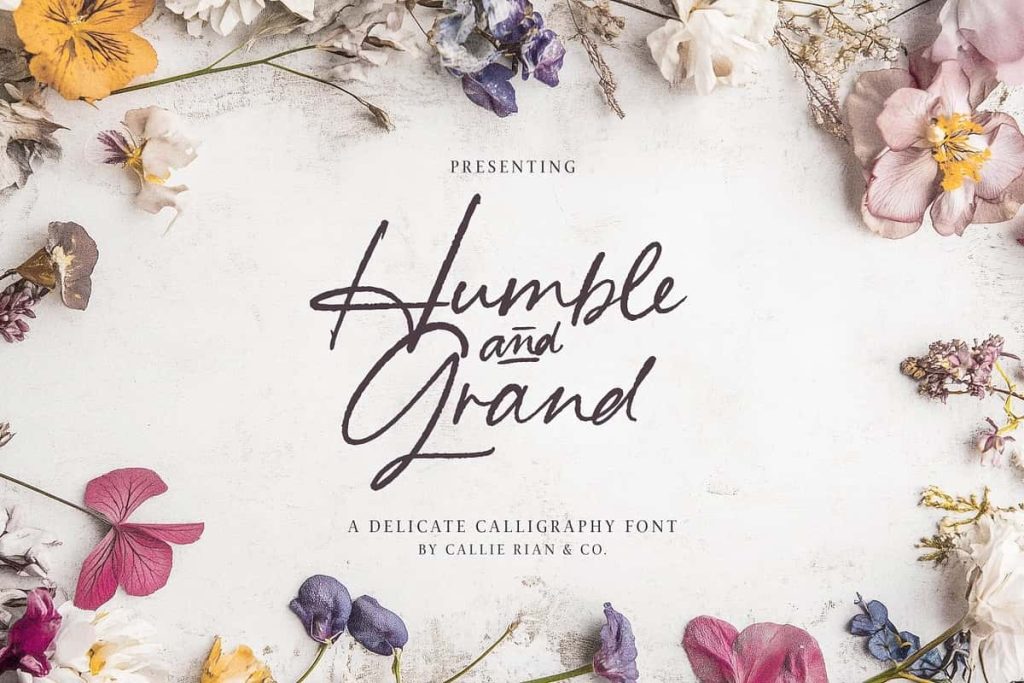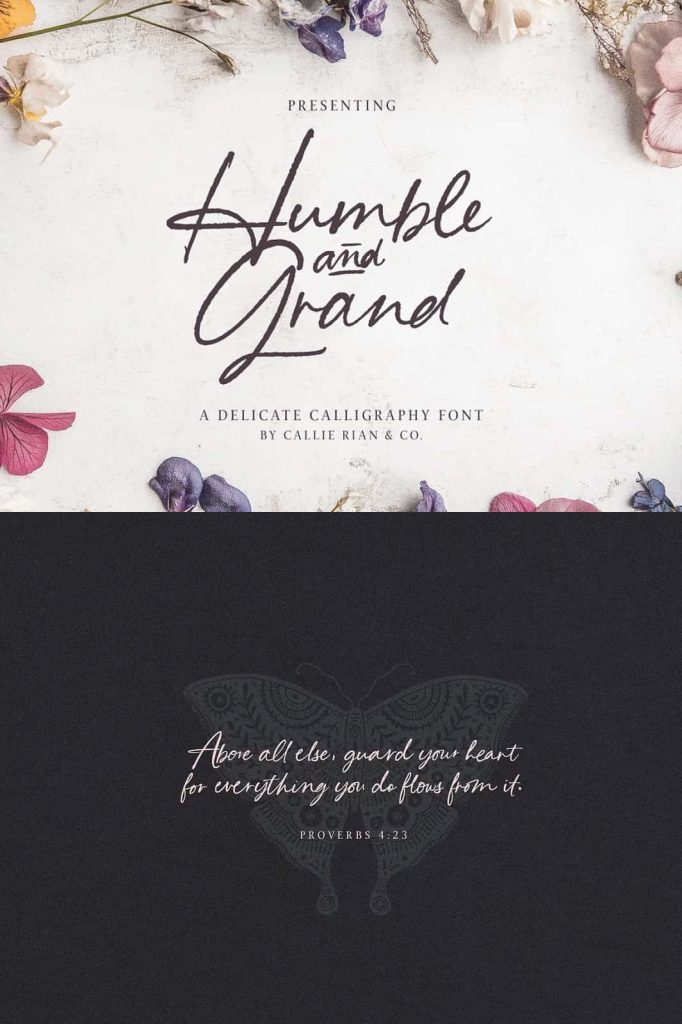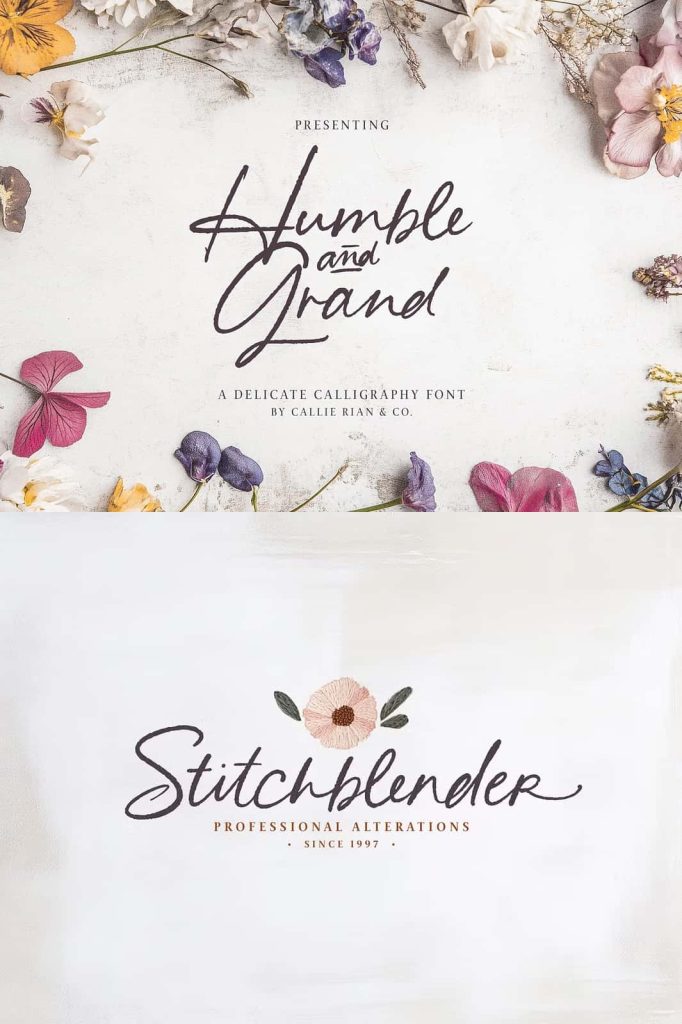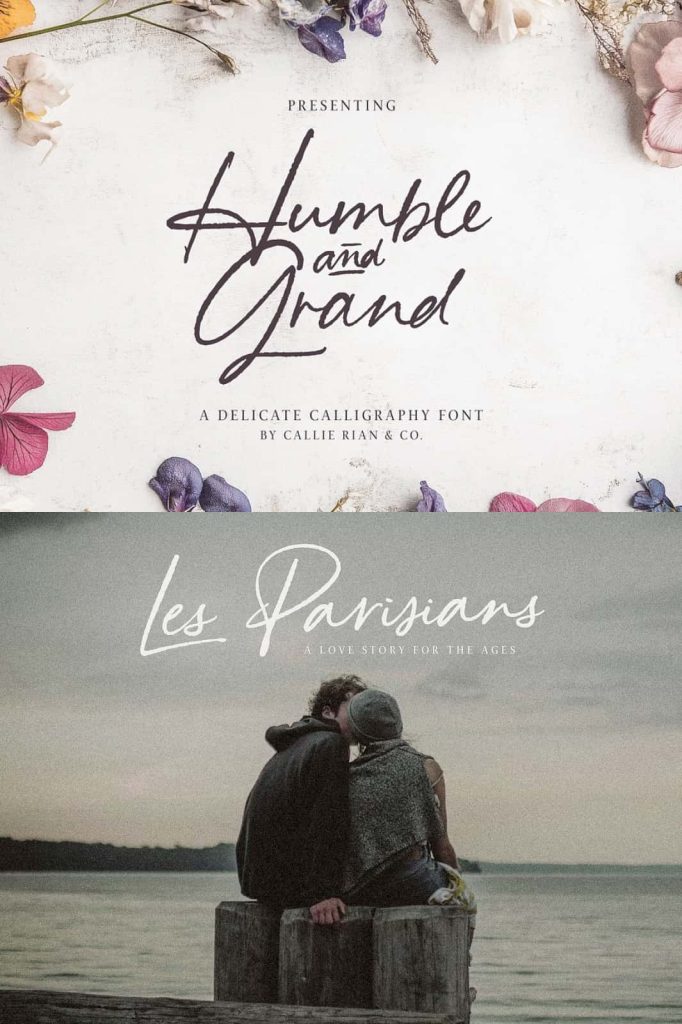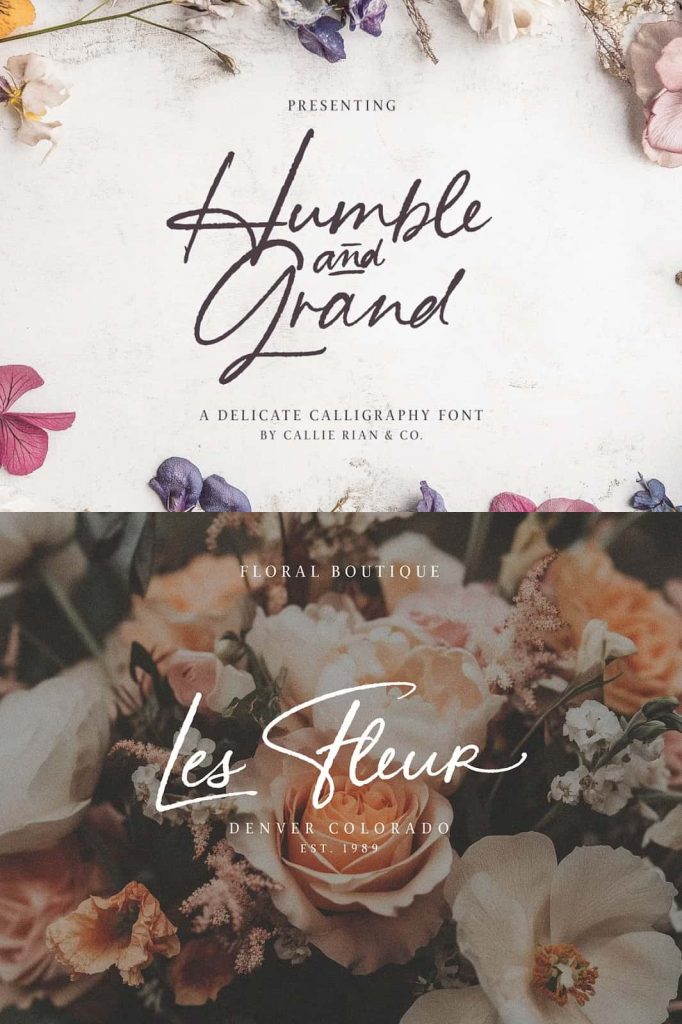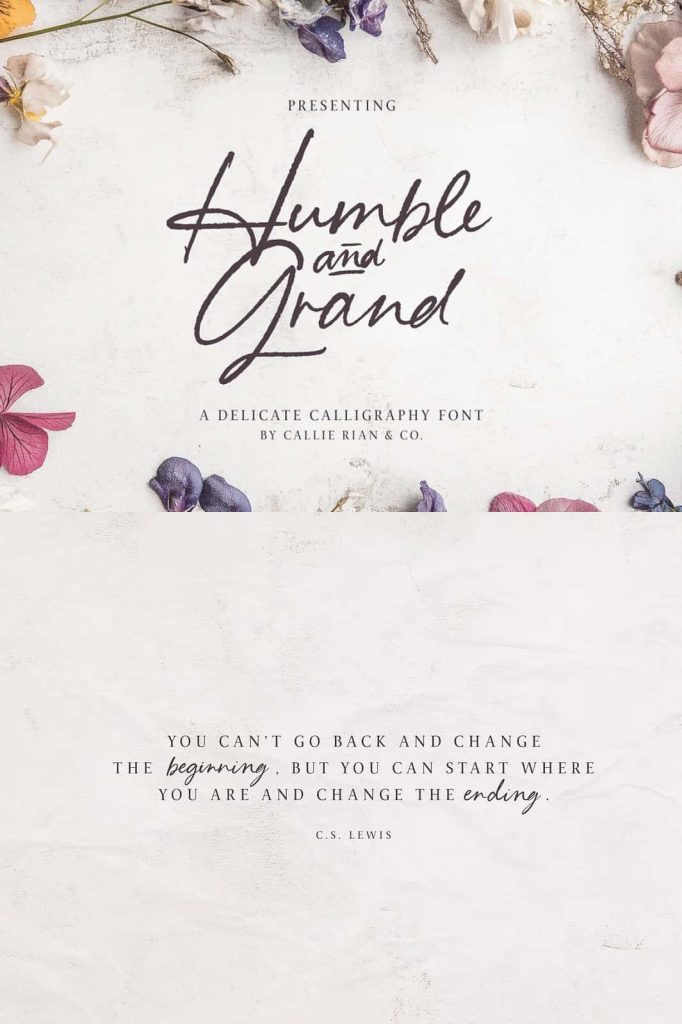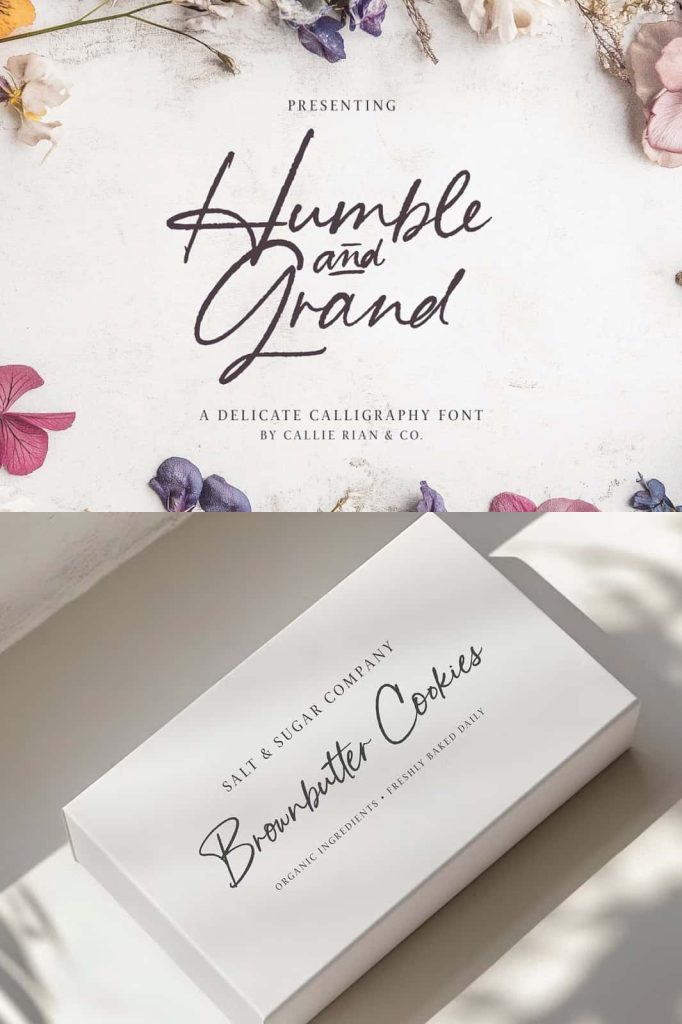
Say hello to Humble & Grand! I have been working on this one for months, and she’s finally ready. This authentic handwriting font is the most comprehensive script I’ve ever created, including a FULL set additional uppercase glyphs, and 225 additional ligatures,